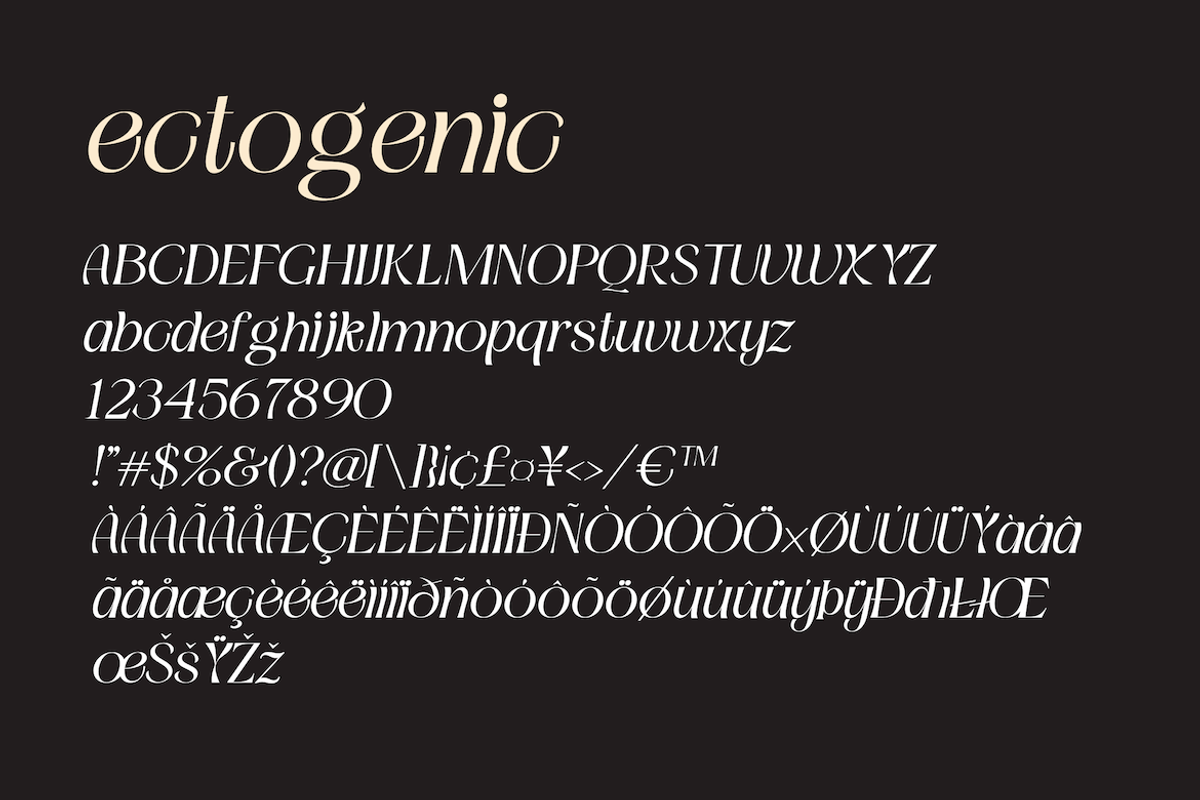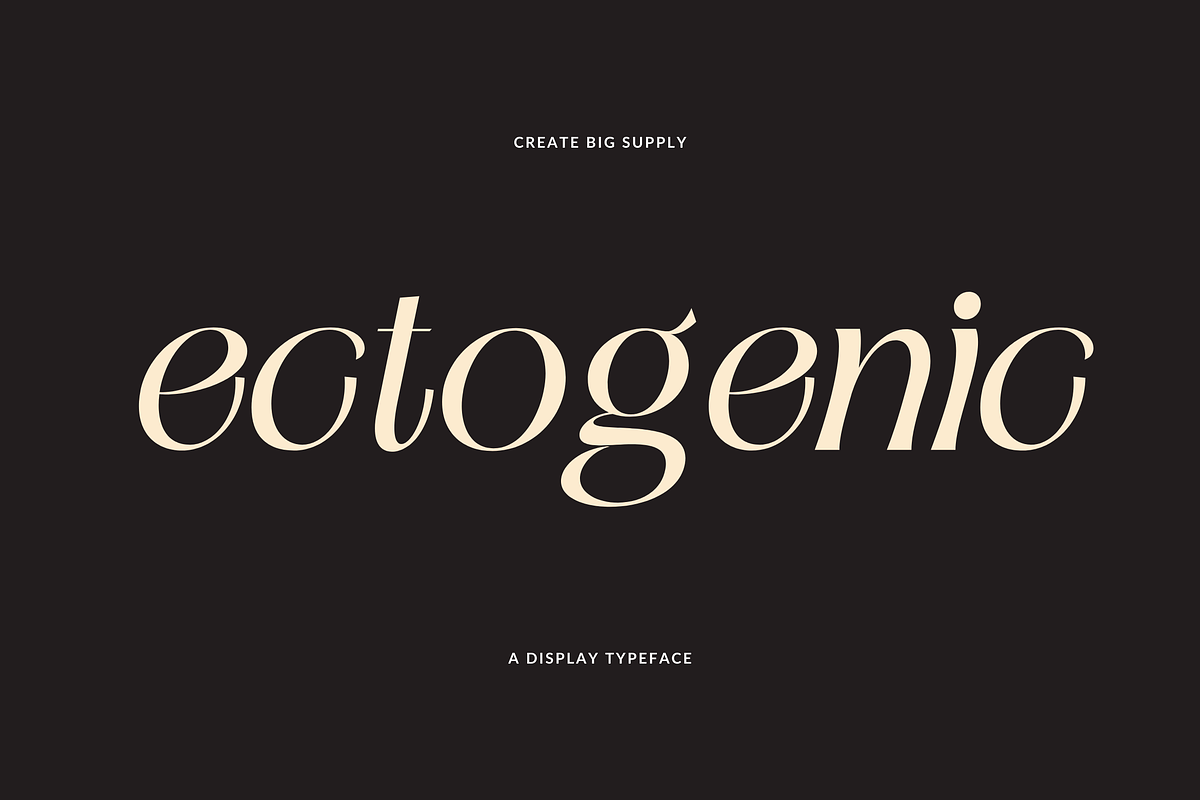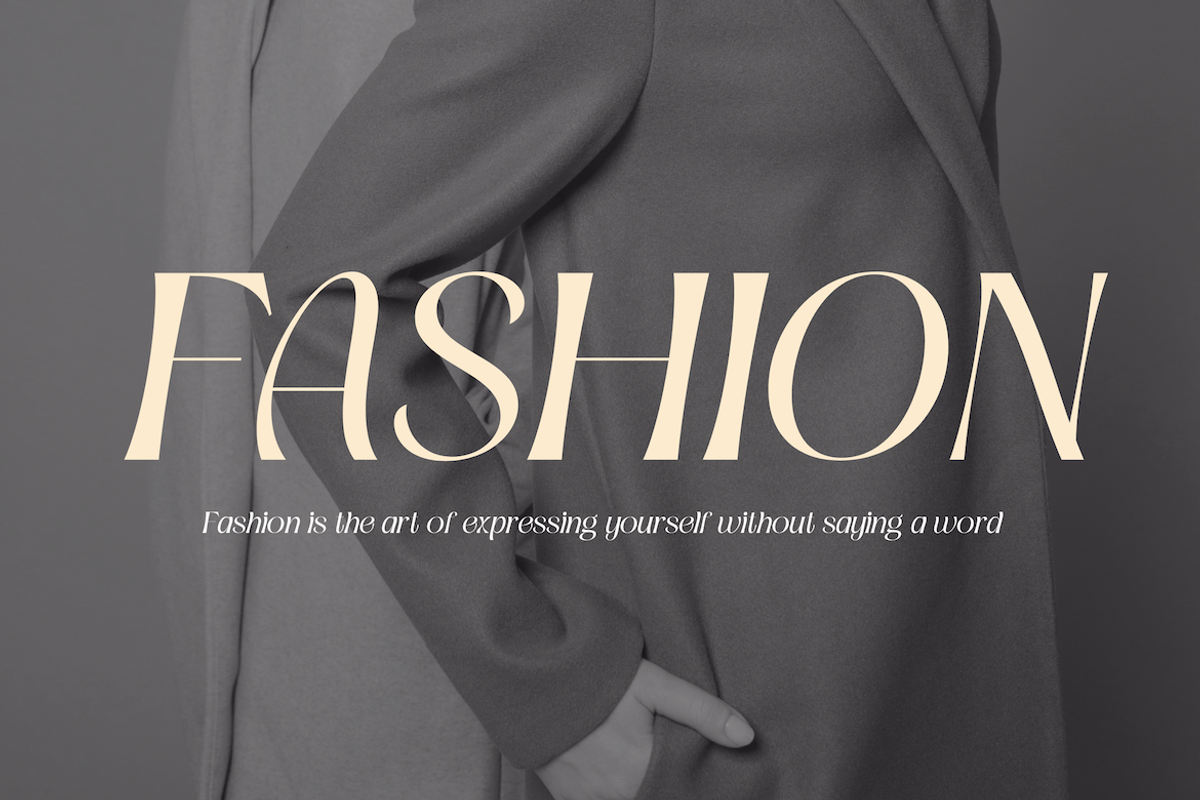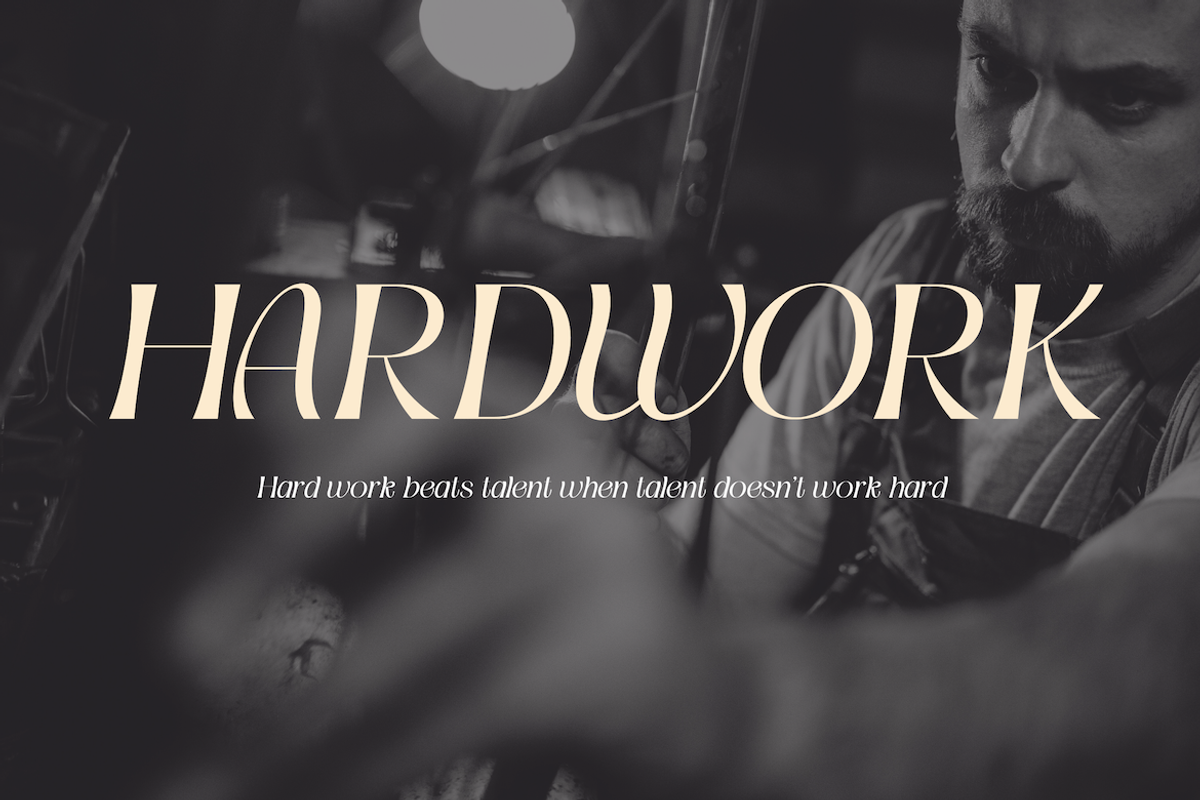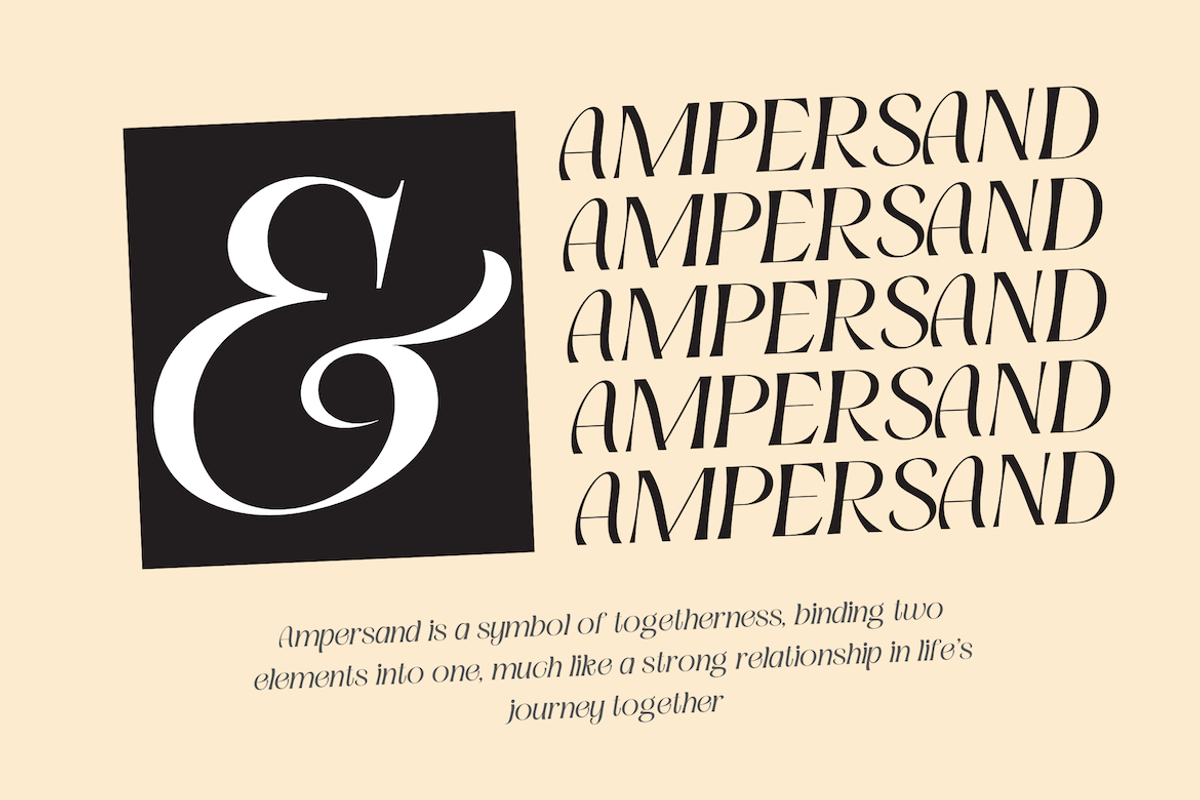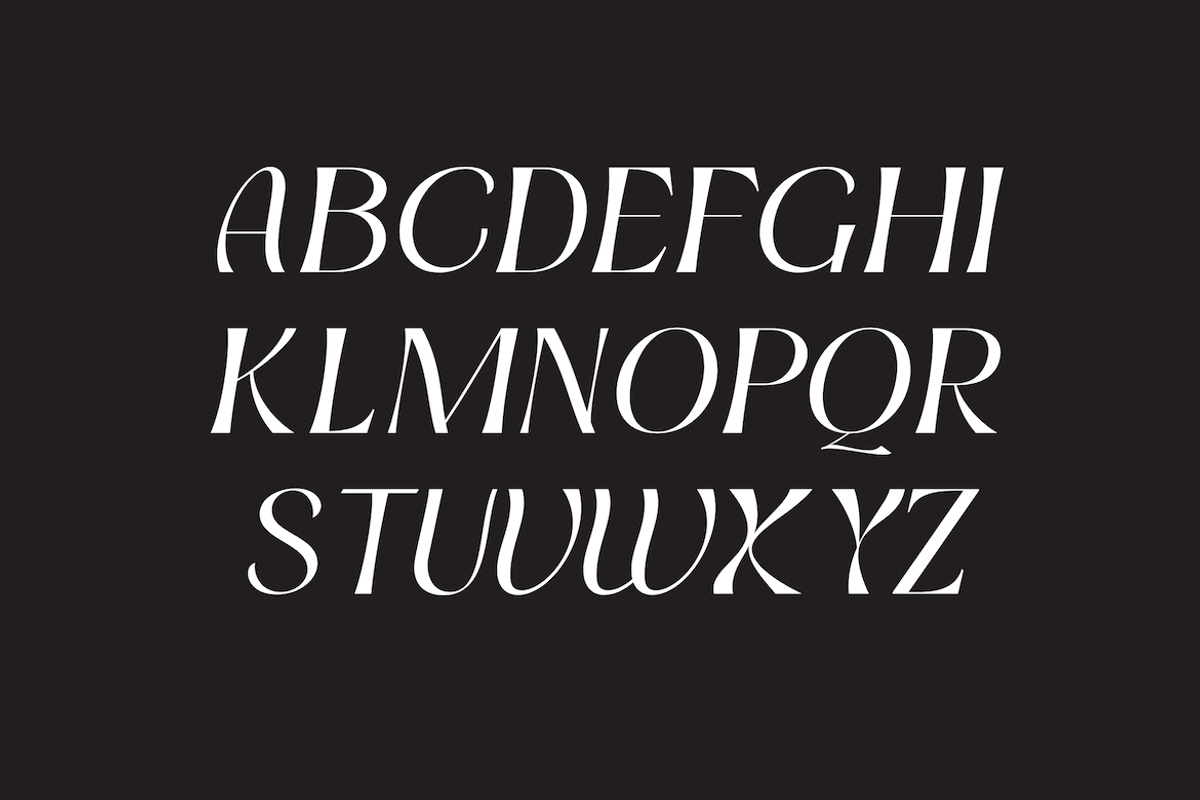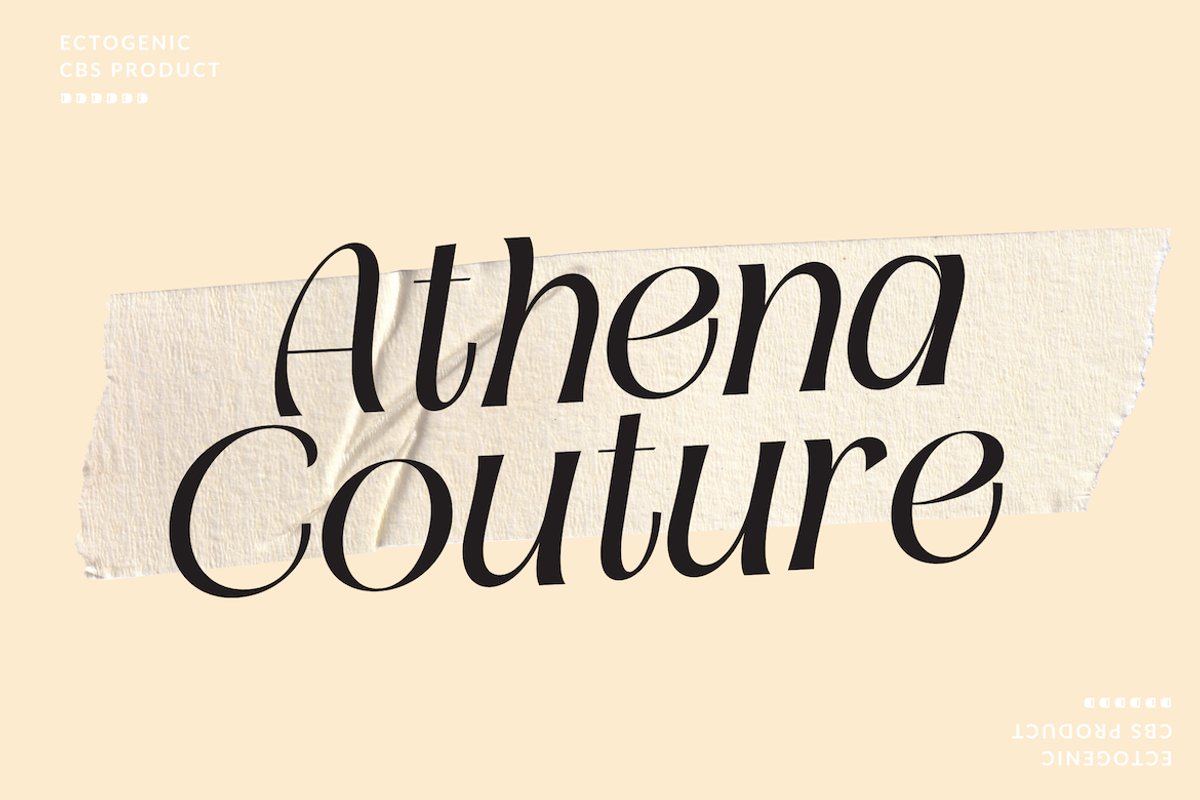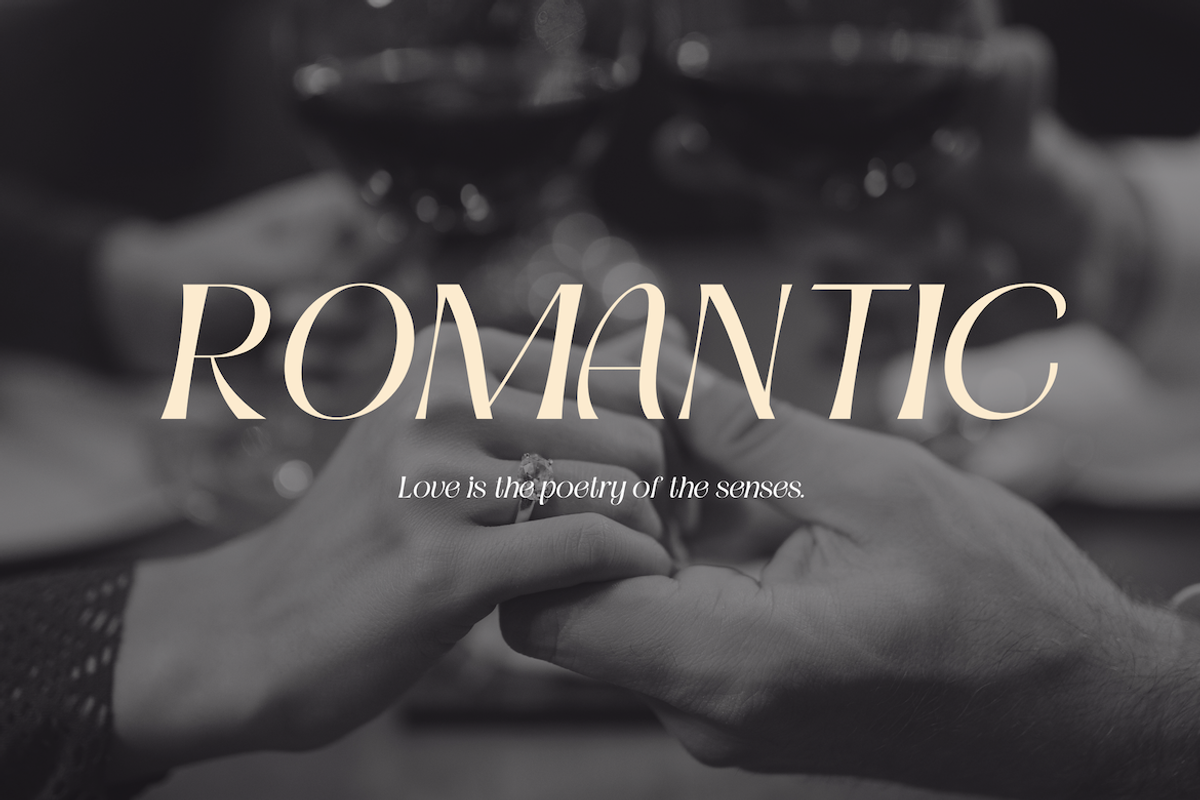
Ectogenic
Ectogenic features both uppercase and lowercase characters, providing versatility for a wide range of design applications. Whether you're crafting eye-catching headlines, stylish posters, or modern branding materials, Ectogenic's italic style brings a unique flair to your designs.
With a comprehensive set of numbers and punctuations, Ectogenic ensures clear and effective communication of your message across various platforms and mediums. Its multilingual support enables you to connect with audiences worldwide seamlessly, making it perfect for global projects.